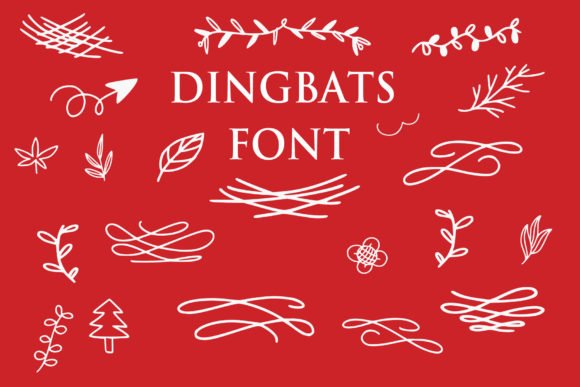
The Secret to Adding Whimsy to Your Designs
Have you ever found yourself stuck in a creative rut, struggling to add that extra something to your design project? Maybe you’re working on a wedding invitation, a birthday card, or even a children’s book – and you just can’t seem to find the right touch. That’s where the Dingbats Floral Font comes in, a clever and versatile dingbats font that can breathe new life into even the most mundane designs.
Perfect for adding a playful, whimsical feel to your projects, the Dingbats Floral Font is an incredibly useful and interesting dingbats font. With its unique floral motifs and delicate designs, it’s the perfect addition to any creative endeavor. Whether you’re a seasoned designer or just starting out, this font is sure to impress and inspire. So why not give it a try and see the magic for yourself?
Dingbats Floral Font Key Features
- Unique Characteristics: Dingbats Floral Font features intricate, hand-drawn floral designs, making it an ideal choice for adding a touch of elegance and sophistication to designs.
- Character Set: The font includes a wide range of characters, including uppercase and lowercase letters, numbers, punctuation marks, and special characters, as well as a variety of floral symbols and ornaments.
- Font Style: Dingbats Floral Font is a script font with a whimsical, handwritten feel, perfect for creating eye-catching headings, titles, and other design elements.
Dingbats Floral Font Review
I’ve had the chance to work with the Dingbats Floral Font, and here’s my honest review. ✨ The font is a great addition to any design project that requires a touch of whimsy and romance. The intricate floral patterns and playful shapes make it perfect for wedding invitations, greeting cards, and other feminine designs.
- Unique and creative design elements
- Perfect for feminine and romantic designs
- High-quality vector files for easy editing and scaling
However, there are a few limitations to consider. ⚠️ The font is not ideal for body text, as the intricate details can make it difficult to read. Additionally, the font’s complexity can make it challenging to pair with other fonts, so it’s best to use it as a standalone element.
Overall, I think the Dingbats Floral Font is a great addition to any designer’s toolkit. While it may have some limitations, its unique design elements and high-quality vector files make it a valuable resource for any design project that requires a touch of elegance and romance.
Combine Dingbats Floral Font with other fonts to create unique and eye-catching designs.
Use it for titles, headings, and other emphasis elements to add a touch of whimsy and elegance.
Floral-themed designs and illustrations
Gift tags and packaging
Editorial and creative content
Q: Can I customize the Dingbats Floral Font to fit my specific design needs?
Yes, the Dingbats Floral Font is a fully editable font, allowing you to customize it using font editing software such as Adobe Illustrator or FontForge. You can also use font manipulation tools to create custom variations of the font.